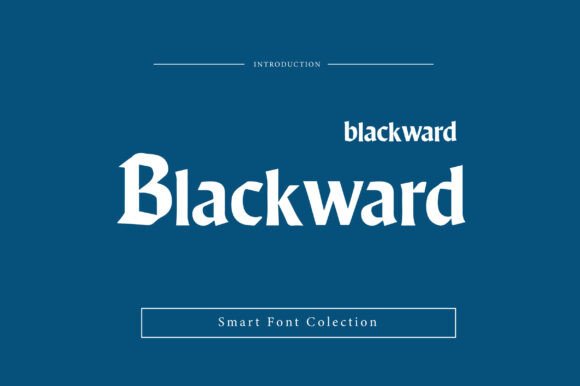
Blackward: A Bold Gothic Font for Impactful Design
Fonts play a crucial role in visual communication, shaping the tone and perception of your message before a single word is read. Blackward stands out as a striking blackletter display font that captures the essence of classic gothic and medieval typography. Designed with sharp edges, strong vertical strokes, and an old-world charm, it brings a sense of authority, drama, and timelessness to any design project.
The Character and Charm of Blackward
At first glance, Blackward commands attention. Its bold structure and elegant curves echo the grandeur of ancient manuscripts and illuminated texts from centuries past. This font isn't just about aesthetics—it's a tool that can transform how your audience perceives a brand, product, or idea. The thick, dramatic letterforms are reminiscent of the ornate blackletter styles used during the Middle Ages, yet they remain modern enough to work seamlessly in today’s digital world.
Key Features That Define Blackward
- Bold and Strong Strokes: Each character is built with powerful vertical lines that give it a commanding presence on the page.
- Sharp Angles and Flourishes: The clean, angular edges contrast beautifully with subtle decorative elements, adding depth and sophistication.
- Vintage Appeal: Whether you're going for a historical vibe or a dark-themed look, Blackward adds authenticity and flair.
- High Readability at Larger Sizes: Though inspired by older scripts, Blackward remains clear and legible when used as a display font.
Why Choose Blackward for Your Projects?
If you're looking to make a strong visual statement, Blackward could be the perfect fit. It’s especially well-suited for designs where tradition meets boldness. For instance, a winery might use it for a label that evokes the legacy of European vineyards, while a music band aiming for a gothic rock aesthetic could use it for album art or posters.
Its versatility means it can adapt to various industries and purposes. From branding for a new luxury candle line to creating impactful tattoo designs, Blackward brings a sense of gravitas and style. Marketers and entrepreneurs often find it useful for packaging that needs to stand out in crowded retail spaces, thanks to its unique and memorable appearance.
Real-World Use Cases for Blackward
Here are some practical scenarios where Blackward shines:
- Logo Design: Ideal for brands with a heritage angle, such as craft breweries, bookstores, or artisanal goods stores.
- Poster and Print Media: Use it to create eye-catching event posters, movie titles, or promotional banners with a vintage twist.
- Album Covers and Music Branding: Musicians in genres like metal, classical, or indie folk can leverage this font to reflect their artistic identity.
- Tattoo Fonts: Artists love Blackward for designing tattoos that have a dramatic, timeless feel.
- Book Titles and Packaging: Whether it's a fantasy novel or a premium coffee blend, this font enhances the overall visual narrative.
Getting Started with Blackward: Tips for Beginners
If you're new to working with blackletter fonts, Blackward offers a great entry point. Here are a few beginner-friendly tips to help you integrate it into your projects effectively:
- Use Sparingly: Because of its bold nature, avoid using Blackward for long paragraphs. Save it for headlines, logos, or short phrases.
- Pair Thoughtfully: To balance its heavy presence, consider pairing it with a more minimalist sans-serif font for body text or supporting copy.
- Experiment with Color and Contrast: Try using it in white or gold over dark backgrounds to highlight its elegance and strength.
- Test Across Platforms: Make sure the font looks good on both print and digital formats—especially if you’re planning to use it online or on social media.
Designers Who Might Benefit from Blackward
Blackward isn’t limited to one type of creator. Educators can use it for historical presentations or museum signage. Freelancers may include it in client proposals for creative projects with a medieval or gothic theme. Small business owners can enhance their branding materials to stand out in niche markets. Bloggers might incorporate it into headers or feature images for content around history, literature, or culture.
Important Considerations Before Using Blackward
While Blackward is visually compelling, it’s important to consider context and audience before implementing it. Not every project will benefit from its dramatic flair. Ask yourself:
- Does my brand or message align with a vintage, gothic, or authoritative tone?
- Will the font be readable across different devices and sizes?
- Is there a need for a font that stands out rather than blends in?
So if you're ready to add a touch of the past to your next project, give Blackward a try. Let its gothic roots inspire your creativity and help you connect with your audience in a meaningful way.